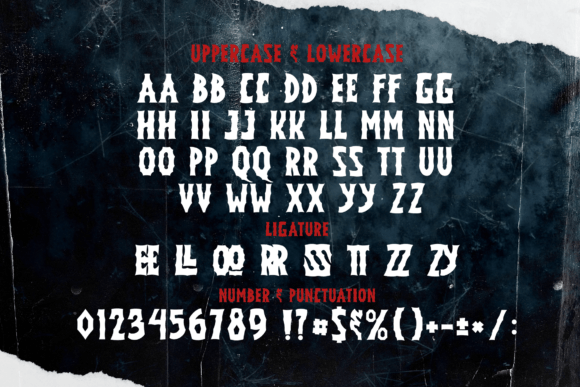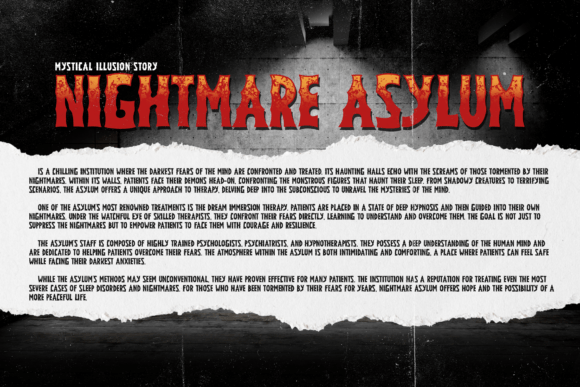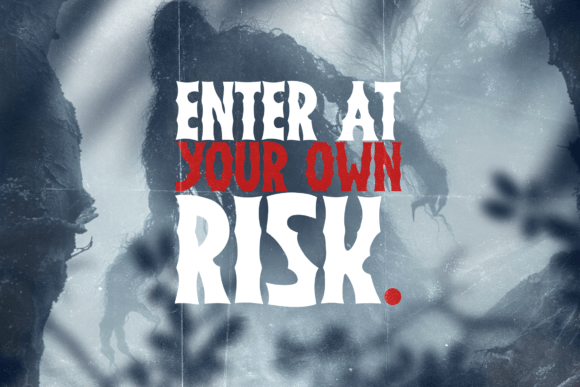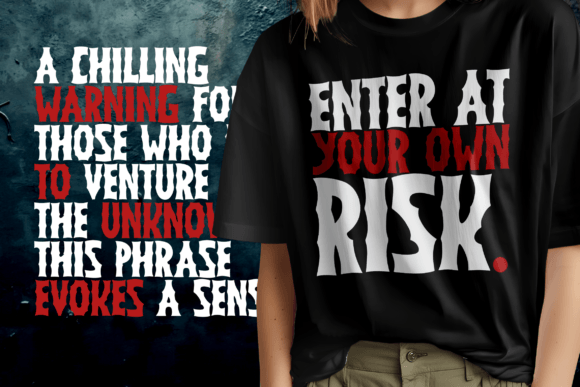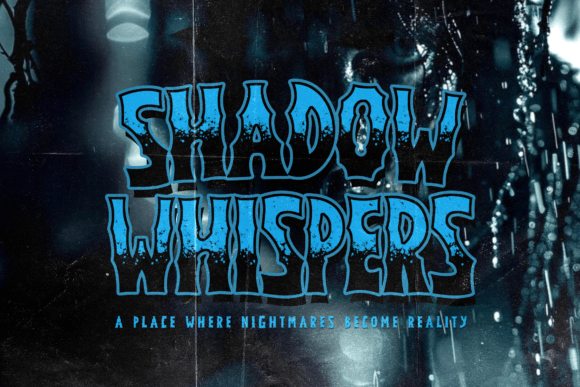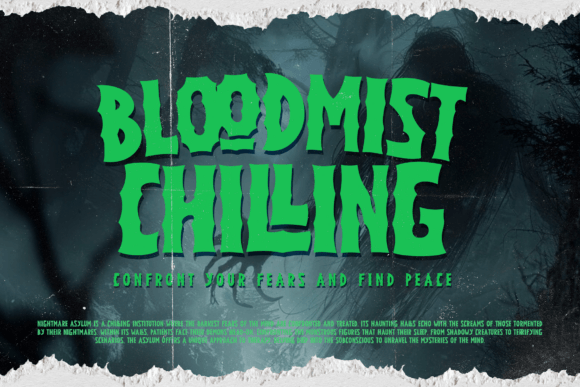
Cavern Dusk Font: A Spooky Halloween Horror Display
As the spookiest time of the year approaches, designers and crafters are on the lookout for eerie and thrilling elements to add to their Halloween-themed projects. If you’re looking for a font that captures the essence of a haunted Halloween night, look no further than the Cavern Dusk Font. Inspired by the creepy atmosphere of a dark cave, Cavern Dusk is a horror display font that will send shivers down your spine.
What is Cavern Dusk Font?
Cavern Dusk is a unique and terrifying font that transports you to a haunted cave, complete with eerie tunnels, creepy creatures, and haunting sounds. The font is designed to evoke a sense of fear and unease, making it perfect for Halloween-themed projects, horror movies, and haunted house attractions. With its dark and mysterious vibe, Cavern Dusk Font is sure to give you chills and thrills.
Characteristics of Cavern Dusk Font
Cavern Dusk Font boasts a range of characteristics that make it stand out from other fonts. Some of its key features include:
- Creepy and Distorted Letters: The font features distorted and irregular letter shapes, giving it a creepy and unsettling feel.
- Glowing Lights and Shadows: The font is designed to resemble the flickering lights and eerie shadows found in a haunted cave.
- Haunting Sounds: The font’s design is inspired by the haunting sounds and screams that echo through a haunted cave.
Uses for Cavern Dusk Font
Cavern Dusk Font is perfect for a range of design and crafting projects, including:
- Halloween-themed Projects: Use the font to create spooky invitations, posters, and flyers for Halloween parties and events.
- Horror Movies and TV Shows: The font is ideal for creating creepy title sequences, posters, and promotional materials for horror movies and TV shows.
- Haunted House Attractions: Use the font to create eerie signs, posters, and displays for haunted house attractions.
- Crafting and Scrapbooking: Add a touch of spookiness to your crafting and scrapbooking projects with the Cavern Dusk Font.
Tips for Using Cavern Dusk Font
To get the most out of Cavern Dusk Font, here are some tips to keep in mind:
- Use it Sparingly: Due to its bold and creepy design, it’s best to use Cavern Dusk Font sparingly to avoid overwhelming your design.
- Pair it with Other Fonts: Pair Cavern Dusk Font with other fonts to create a unique and eye-catching design.
- Experiment with Colors: Experiment with different colors and textures to enhance the creepy atmosphere of the font.
| Font Name | Cavern Dusk Font |
| Author | Dansdesign |
Cavern Dusk Font is a unique and terrifying font that’s perfect for designers and crafters looking to add a touch of spookiness to their Halloween-themed projects. With its creepy and distorted letters, glowing lights and shadows, and haunting sounds, Cavern Dusk Font is sure to give you chills and thrills. Whether you’re creating Halloween-themed projects, horror movies, or haunted house attractions, Cavern Dusk Font is the perfect choice.
In conclusion, Cavern Dusk Font is a must-have for designers and crafters looking to create spooky and thrilling Halloween-themed projects. Its creepy and distorted design, glowing lights and shadows, and haunting sounds make it the perfect font for adding a touch of horror to your designs.